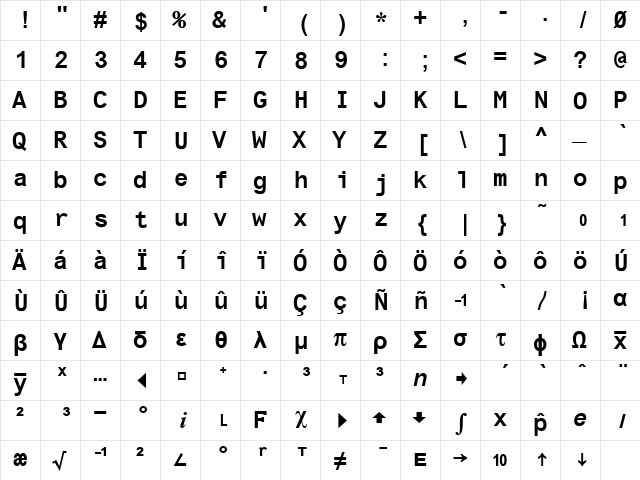
Ti83pc Bold
Design Context for Ti83pc Typeface
Ti83pc is a composed and adaptable typeface that performs quietly and consistently across a wide range of design contexts. The heavy weight commands attention and anchors typographic hierarchies.